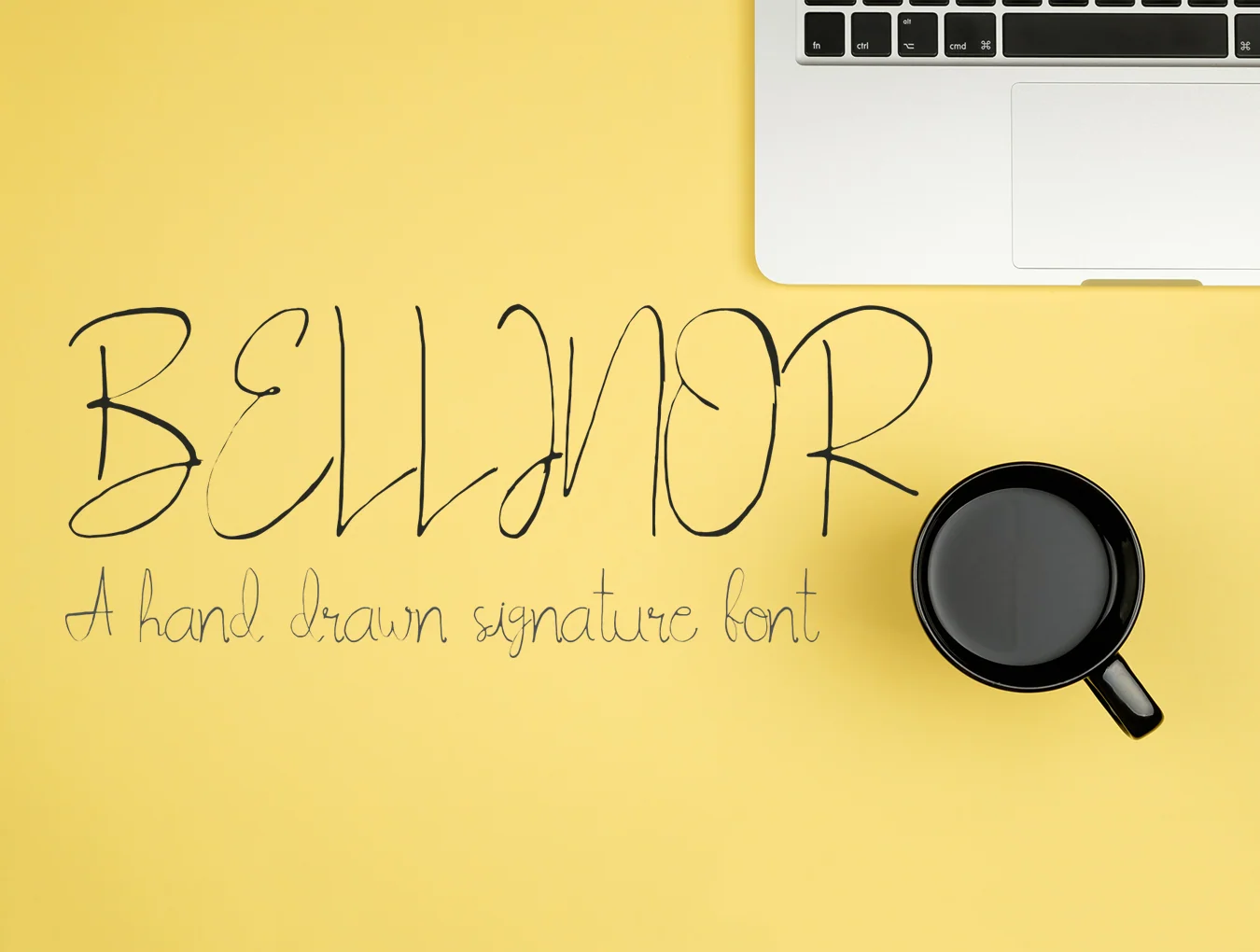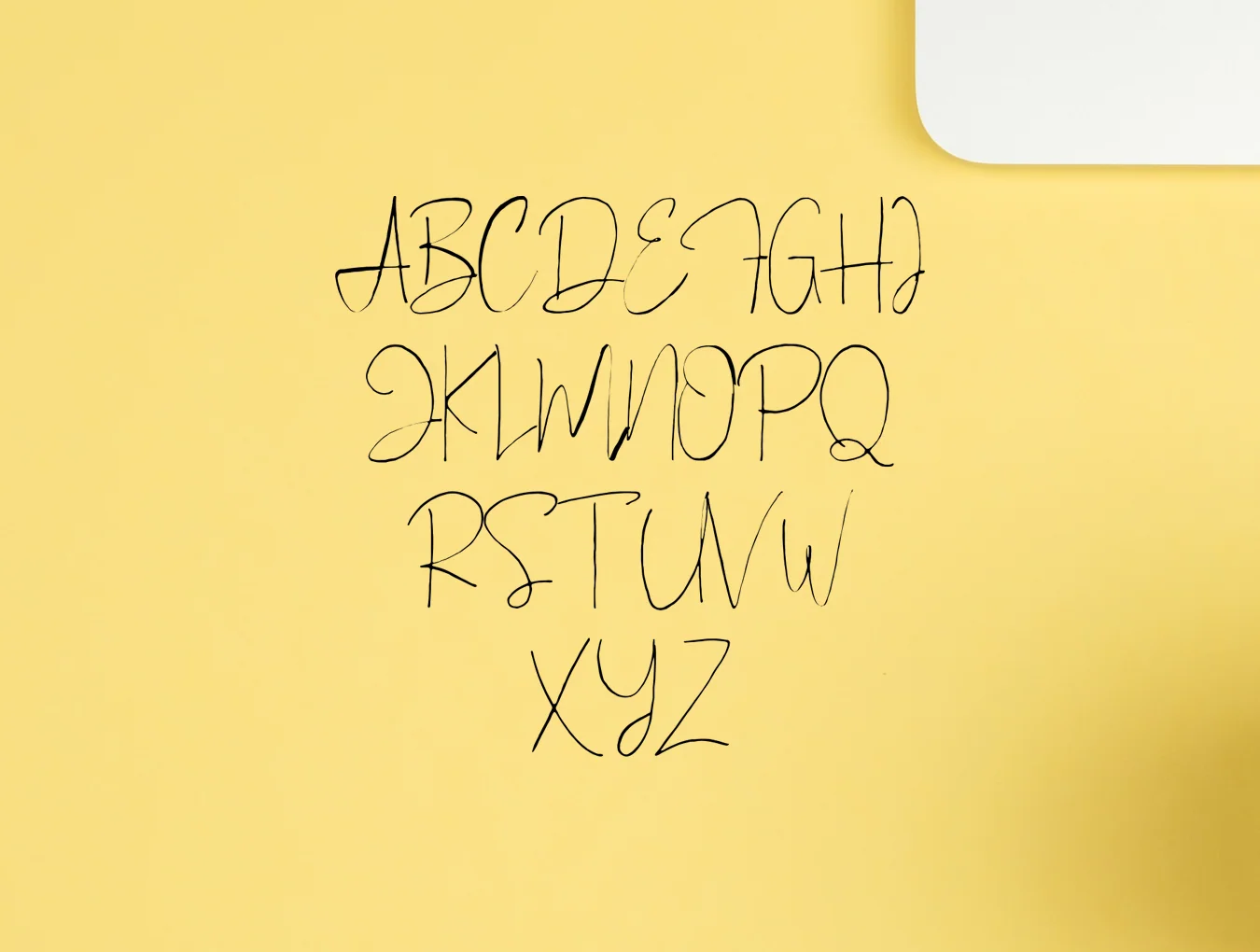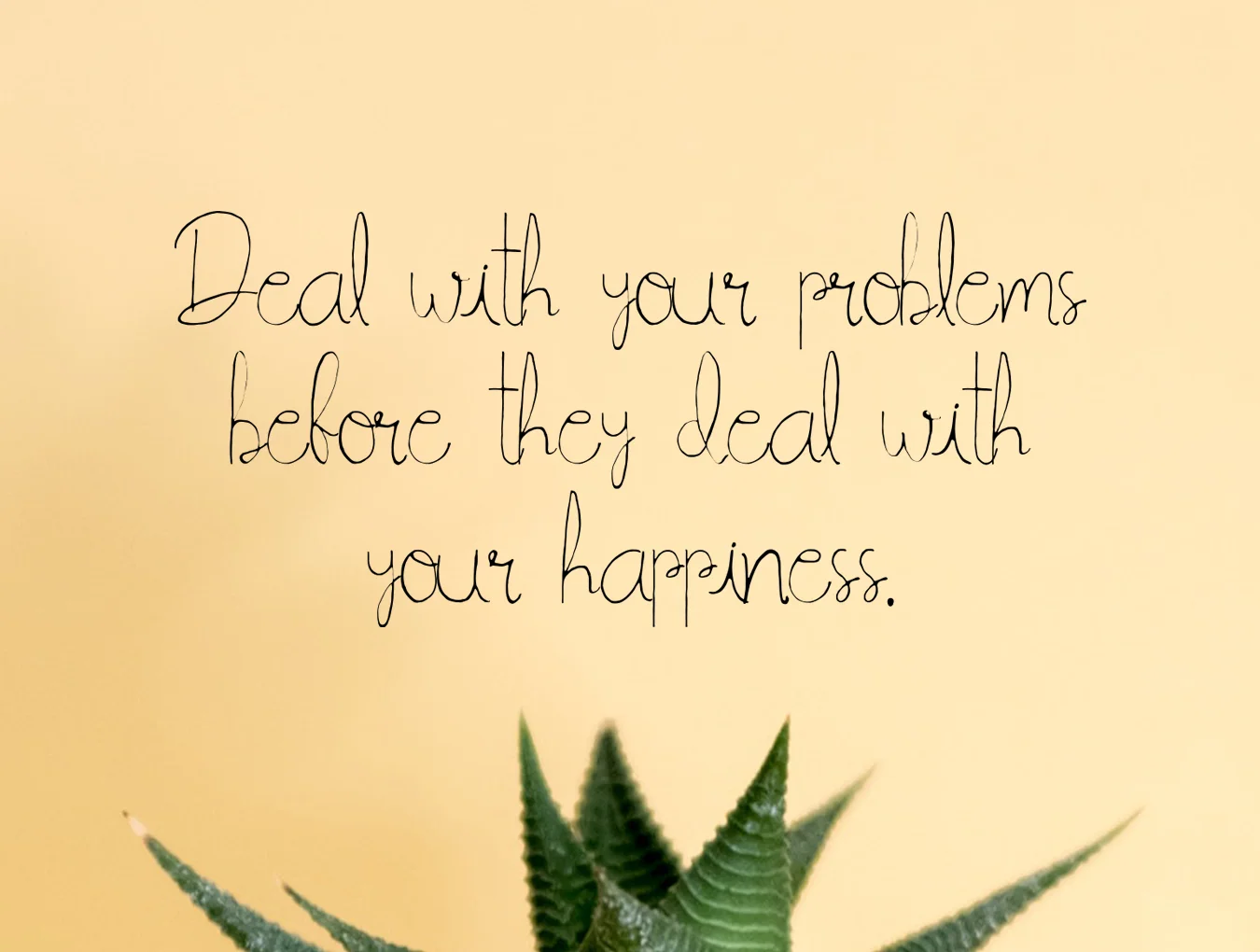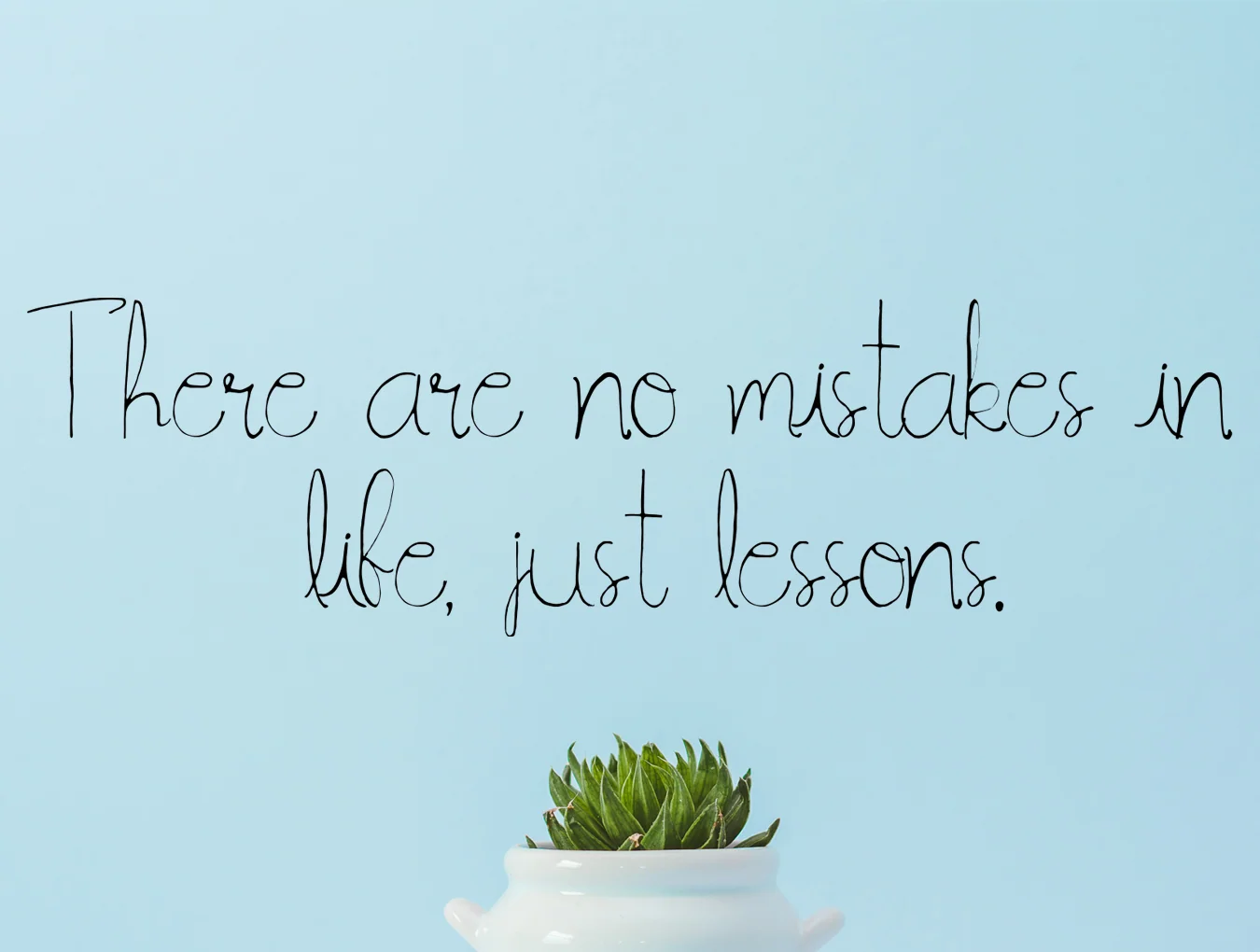
Bellinor Signature Font
Hand-sketched typeface
Bellinor is a hand-sketched signature typeface with a soft, charming feel. It includes 149 glyphs, featuring uppercase and lowercase characters, numbers, extensive punctuation, and ligatures. Ideal for branding, event and wedding invitations, and sweet Instagram designs.